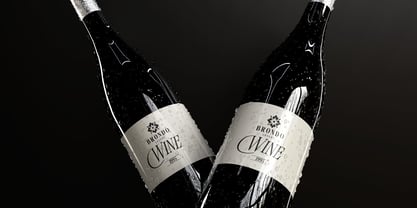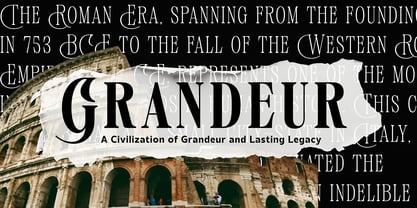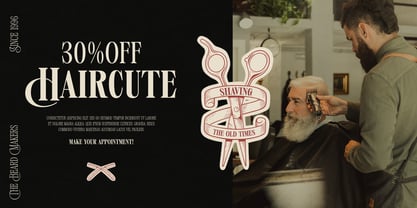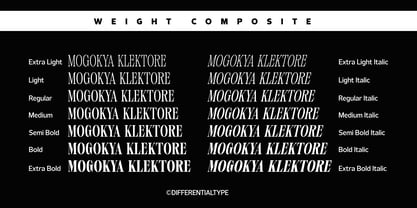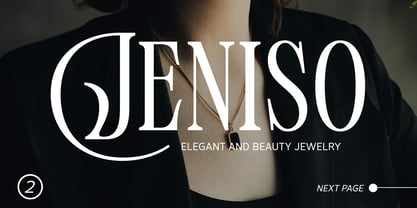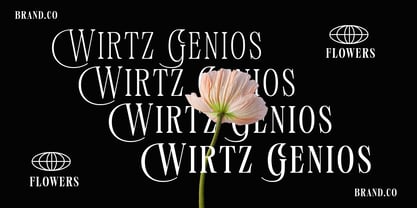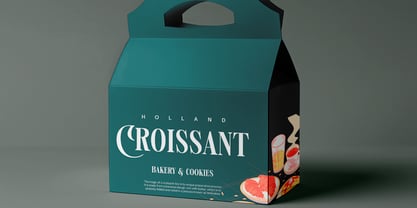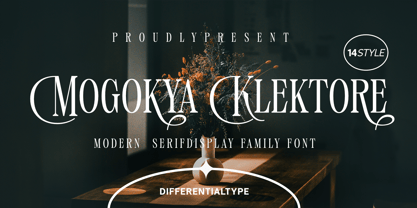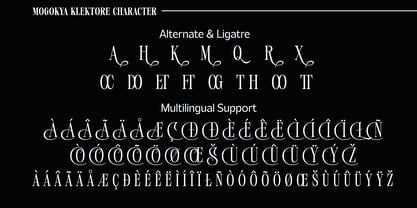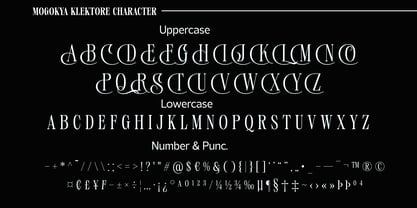
Mogokya Klektore
by Differentialtype
The Mogokya Klektore Font Family was designed by Sidik Sidik and published by Differentialtype. Mogokya Klektore contains 14 styles and family package options. More about this family
Mogokya Klektore is a serif display font that exudes luxurious elegance with a modern twist. This font comes in an impressive 14 styles, featuring 7 weights complete with their corresponding italics. The unique blend of uppercase and lowercase letters creates a casual, contemporary feel, making it a perfect choice for designers looking to merge classic sophistication with a trendy vibe.
With its strong and versatile character, the Mogokya Klektore font is ideal for a wide range of professional design needs. It's particularly well-suited for product branding, logos, headlines, book covers, titles, and posters, where it can elevate your message with an air of luxury. Mogokya Klektore adds an exclusive and classy touch, ensuring your design projects look distinct and unforgettable.